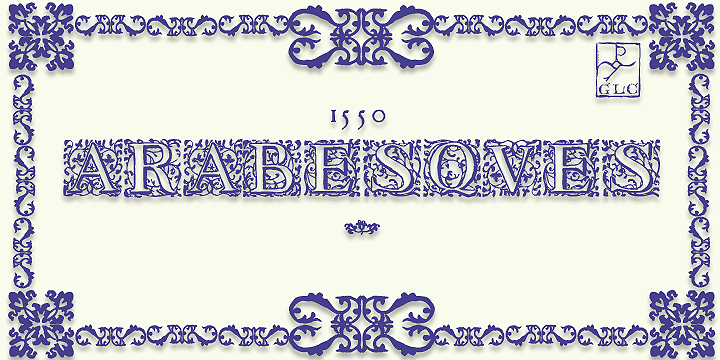
1550 Arabesques
from GLC
1550 Arabesques
Font inspired by the decorative elements and opening capitals frequently in use in the early 1500s, under Geoffroy Tory’s book “Champfleury” influence, especially in Lyon (France). It is an entirely original design.
It is used to embellish texts, such as posters, greetings, invitations, gastronomic menus and much more...
This font easily supports enlargement to 48, 60, 72 points and more, as it is made for those sizes!